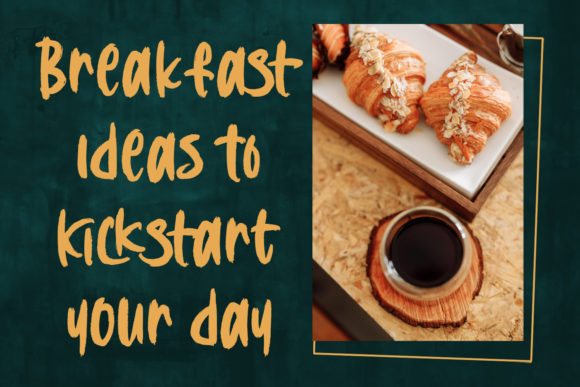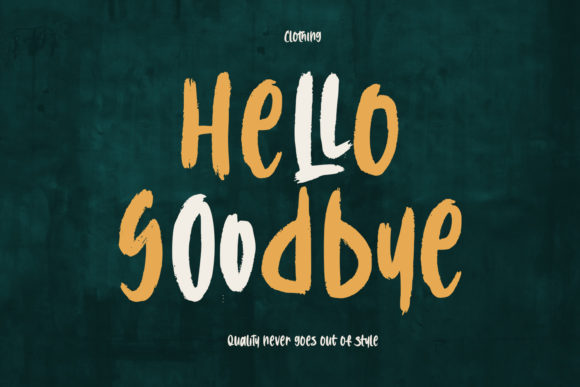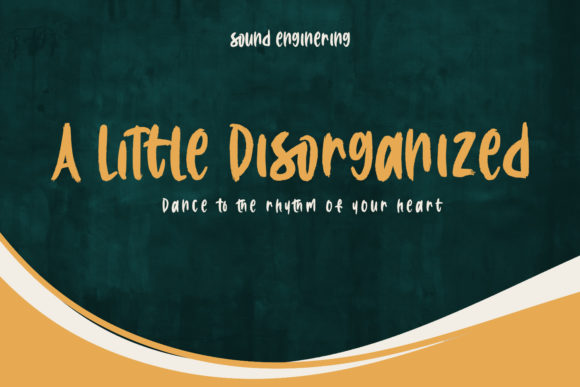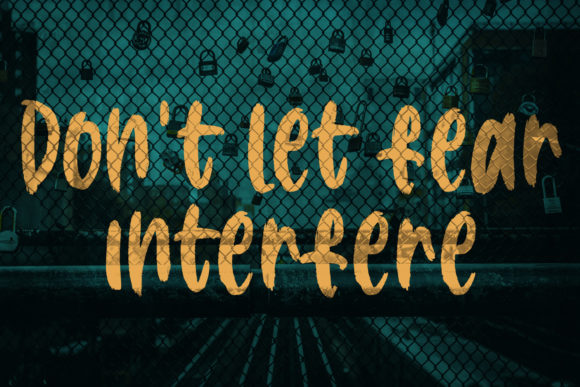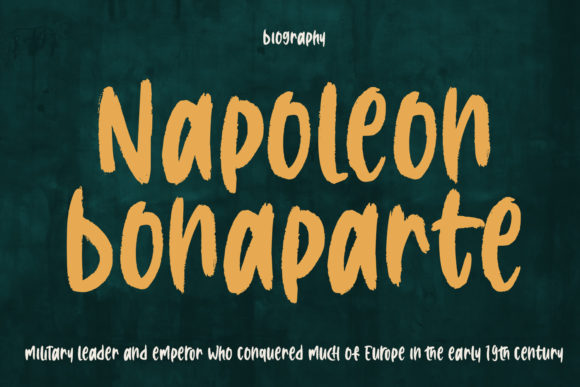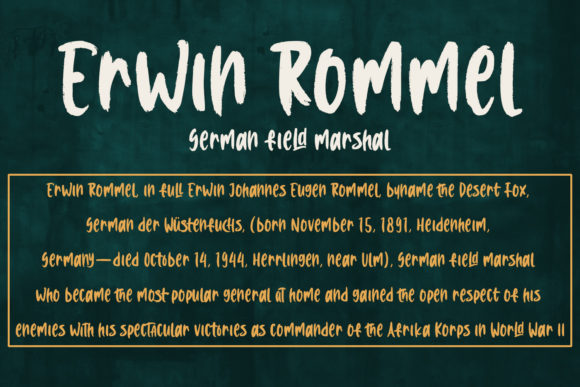
Croxypraxis Font: Elevate Your Designs with a Timeless Handwritten Style
In the world of typography, fonts play a crucial role in conveying the tone and personality of a brand or design. For designers and crafters looking to add a touch of elegance and sophistication to their work, the Croxypraxis font is an excellent choice. This lovely and timeless handwritten font is perfect for creating eye-catching logos, branding, and quotes that will leave a lasting impression.
The Unique Charm of Croxypraxis
What sets Croxypraxis apart from other fonts is its unique and beautiful touch. Every letter has been carefully crafted to bring a sense of warmth and personality to your designs. The font’s handwritten style gives it a humanizing quality that is hard to replicate with more traditional fonts. Whether you’re looking to create a logo, branding materials, or social media graphics, Croxypraxis is the perfect choice.
Key Features of Croxypraxis Font
- Handwritten style: Croxypraxis boasts a beautiful, handwritten style that adds a touch of elegance to any design.
- Unique letterforms: Each letter has been carefully crafted to bring a sense of personality and whimsy to your designs.
- Timeless appeal: Unlike trendy fonts that may quickly go out of style, Croxypraxis has a timeless quality that will ensure your designs remain relevant for years to come.
- Versatile: Croxypraxis is perfect for a wide range of design applications, from logos and branding to quotes and social media graphics.
Why Choose Croxypraxis for Your Designs?
So, why should you choose Croxypraxis for your designs? Here are just a few compelling reasons:
- Stand out from the crowd: With Croxypraxis, you can create designs that are truly one-of-a-kind and eye-catching.
- Convey your brand’s personality: The font’s handwritten style and unique letterforms make it easy to convey your brand’s personality and tone.
- Easy to read: Despite its elegant style, Croxypraxis is easy to read, making it perfect for use in a wide range of design applications.
Tips for Using Croxypraxis in Your Designs
To get the most out of Croxypraxis, here are a few tips to keep in mind:
- Use it sparingly: While Croxypraxis is a beautiful font, it can be overwhelming if used excessively. Use it sparingly to add emphasis and personality to your designs.
- Experiment with colors: Croxypraxis looks great in a wide range of colors, so don’t be afraid to experiment and find the perfect hue for your design.
- Pair it with other fonts: Croxypraxis pairs well with a wide range of fonts, so feel free to get creative and experiment with different combinations.
In conclusion, Croxypraxis is a truly special font that can elevate your designs to new heights. Its unique and beautiful touch, combined with its timeless appeal, make it the perfect choice for designers and crafters looking to add a touch of elegance and sophistication to their work. Whether you’re creating logos, branding materials, or social media graphics, Croxypraxis is sure to impress.